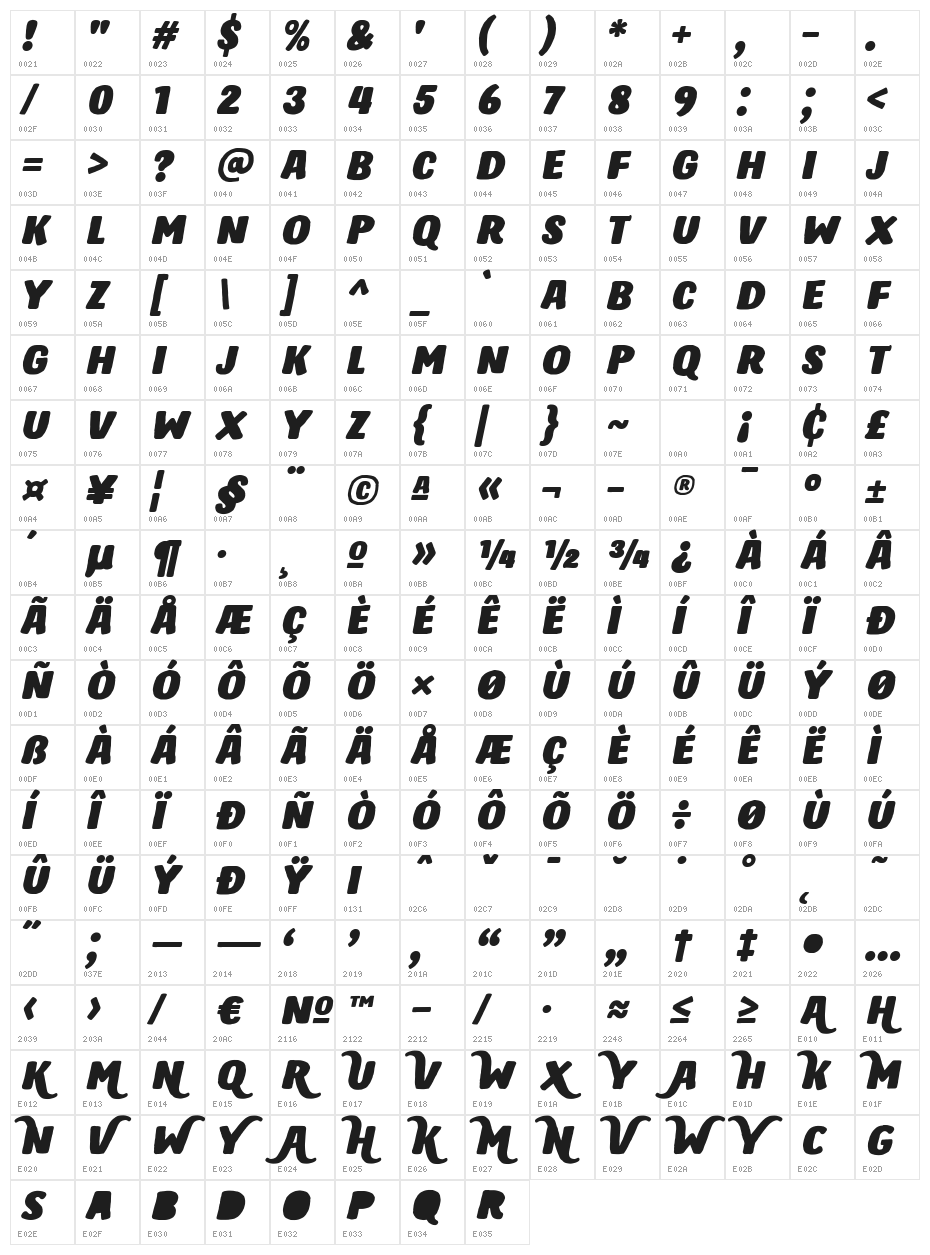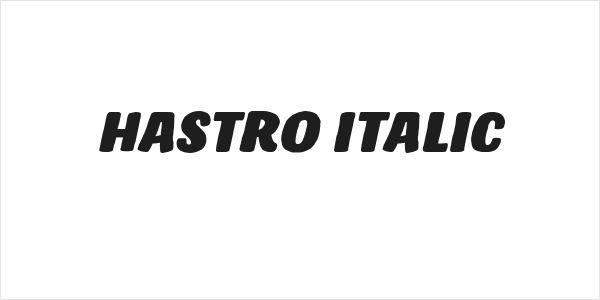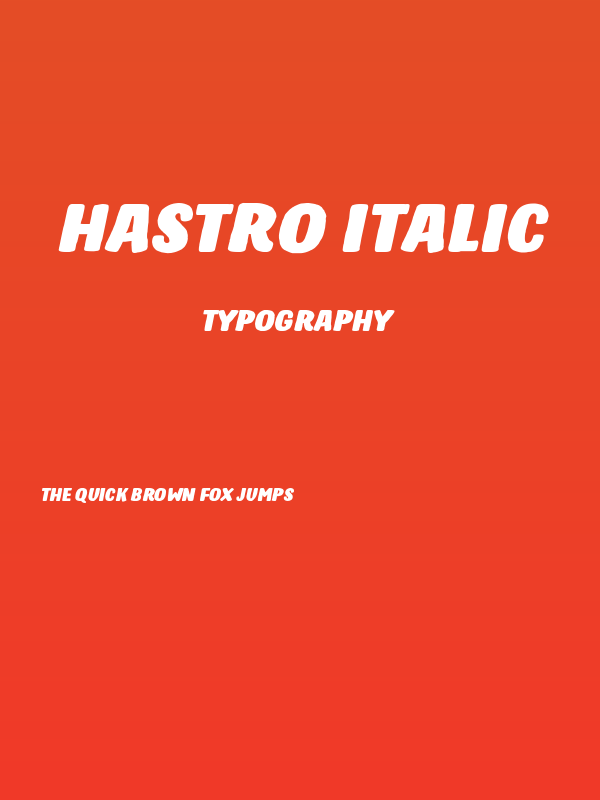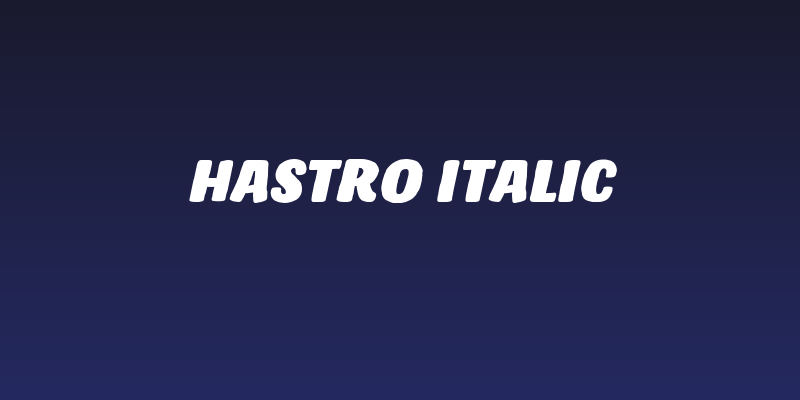
Hastro Italic Font
Hastro Italic Description
This font features a bold and dynamic style with a distinct italic slant, giving it a sense of movement and energy. The characters are robust and thick, with rounded edges that soften the overall appearance. The uppercase and lowercase letters maintain a consistent weight, contributing to a cohesive look. The numerals are equally bold, ensuring readability and impact. Special characters are designed with the same boldness, making them stand out effectively. This font's strong presence makes it suitable for attention-grabbing designs.
| Proposed Projects | Ideal for sports branding, dynamic posters, and bold headlines. |